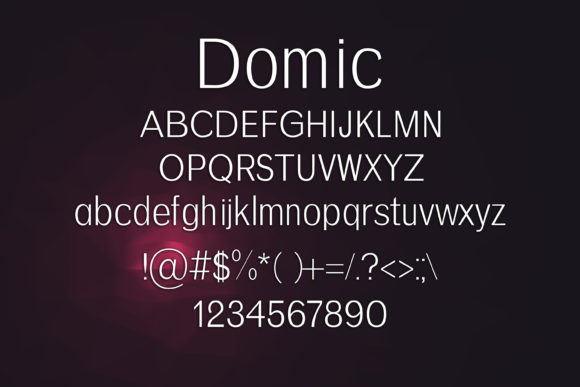
Domic Font: A Modern Twist on Traditional Sign Painting
In the world of typography, fonts play a crucial role in conveying the message and aesthetic of a design. For designers and crafters, finding the perfect font can be a daunting task. However, if you’re looking for a stunning sans serif font that combines traditional sign painting with a modern twist, look no further than Domic Font.
What is Domic Font?
Domic Font is a clean and minimal sans serif font that draws inspiration from traditional sign painting. With its modern twist, it’s perfect for designers and crafters looking to add a touch of sophistication to their designs. The font’s clean lines and simple shapes make it versatile and easy to read, making it suitable for a wide range of applications.
The Inspiration Behind Domic Font
The inspiration behind Domic Font lies in traditional sign painting, a craft that has been around for centuries. Sign painting involves creating hand-painted signs that are both functional and visually appealing. The craft requires a great deal of skill and attention to detail, as the signs need to be legible and eye-catching.
Domic Font takes the essence of traditional sign painting and translates it into a modern sans serif font. The font’s design is characterized by its clean lines, simple shapes, and subtle flair, making it perfect for modern designs.
Key Features of Domic Font
So, what makes Domic Font stand out from other fonts? Here are some of its key features:
- Clean and Minimal Design: Domic Font has a clean and minimal design that makes it perfect for modern designs. The font’s simple shapes and clean lines ensure that it’s easy to read and versatile.
- Traditional Sign Painting Inspiration: The font’s inspiration from traditional sign painting gives it a unique and distinctive look. The subtle flair and nuances of the font are reminiscent of hand-painted signs.
- Modern Twist: Domic Font has a modern twist that sets it apart from traditional sign painting fonts. The font’s clean lines and simple shapes give it a contemporary feel that’s perfect for modern designs.
- Versatile: Domic Font is versatile and can be used for a wide range of applications, from branding and advertising to packaging and digital design.
Why Use Domic Font?
So, why should designers and crafters use Domic Font? Here are some reasons:
- Unique Look: Domic Font has a unique look that sets it apart from other fonts. Its inspiration from traditional sign painting gives it a distinctive feel that’s perfect for designers looking to add a touch of personality to their designs.
- Easy to Read: The font’s clean lines and simple shapes make it easy to read, even at small sizes. This makes it perfect for designs that require a lot of text, such as brochures and website content.
- Versatile: Domic Font is versatile and can be used for a wide range of applications. Whether you’re designing a logo, brochure, or website, Domic Font is a great choice.
- Modern Feel: The font’s modern twist gives it a contemporary feel that’s perfect for modern designs. Whether you’re designing for a tech startup or a fashion brand, Domic Font is a great choice.
- Pair it with Other Fonts: Domic Font can be paired with other fonts to create a unique look. Try pairing it with a serif font for a contrasting look or with another sans serif font for a cohesive look.
- Use it for Headings and Body Text: Domic Font can be used for both headings and body text. Use it for headings to add a touch of personality to your design, and use it for body text to create a clean and easy-to-read layout.
- Experiment with Colors and Textures: Domic Font can be used with a variety of colors and textures. Experiment with different colors and textures to create a unique look that reflects your brand’s personality.
In conclusion, Domic Font is a stunning sans serif font that combines traditional sign painting with a modern twist. Its clean and minimal design makes it perfect for modern designs, and its versatility ensures that it can be used for a wide range of applications. Whether you’re a designer or crafter, Domic Font is a great choice for adding a touch of sophistication to your designs.